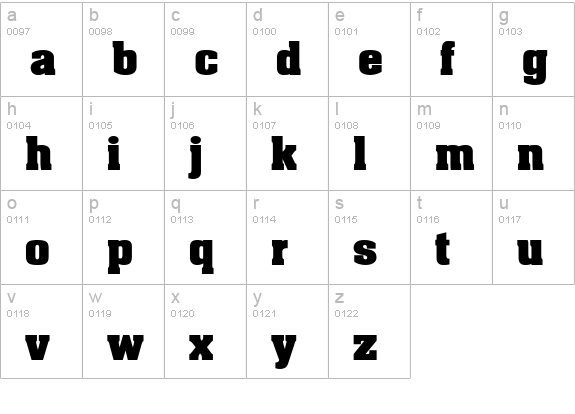
EricaBold Font Details
EricaBold is a stylish and elegant font that exudes sophistication and modernity. With its bold and prominent letterforms, this font commands attention and makes a strong visual impact. Perfect for creating eye-catching headlines, logos, and branding materials, EricaBold adds a touch of class to any design project. The best part? EricaBold is available for free download at FontsMarket.com, making it easily accessible to designers and creatives looking to elevate their work with a premium font without breaking the bank. Whether you're working on a print design, web project, or any other creative endeavor, EricaBold is sure to make a lasting impression with its distinctive style and versatility. Download it today and see the difference it can make in your designs!